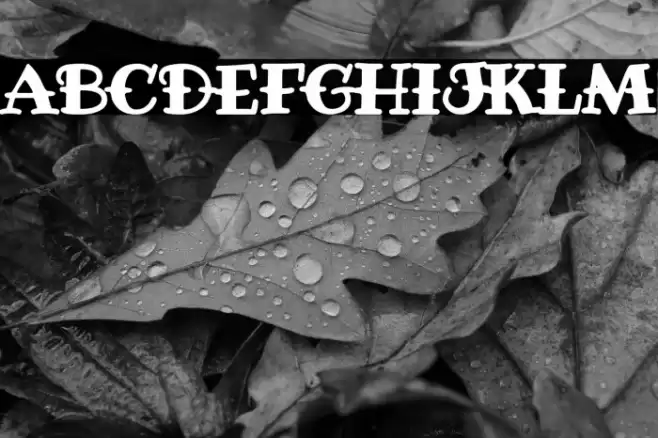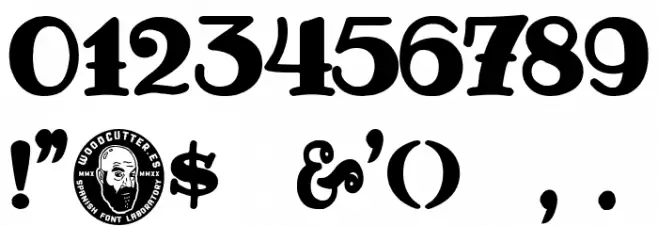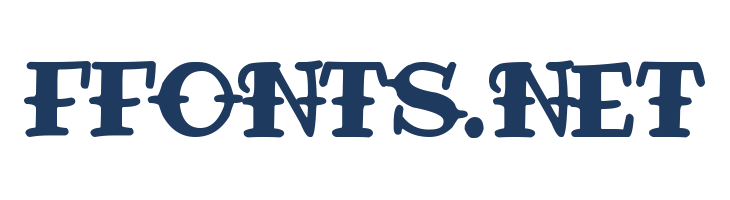
F.T.W. since 1974 Font
F.T.W. since 1974 Description
This font features a bold and playful design with a vintage flair. The characters are heavily stylized, with thick strokes and unique serifs that give it a distinctive appearance. The uppercase letters are particularly striking, with exaggerated curves and a sense of movement. The numbers and special characters maintain the same boldness and style, ensuring consistency across all elements. This font is ideal for creating eye-catching designs that require a touch of retro charm.
A bold, vintage-style font with playful, exaggerated serifs from Uncategorized fonts.
- Font: F.T.W. since 1974
- Proposed Projects: Perfect for retro-themed posters, logos, and branding materials that need a bold statement.
- Overall Style: Vintage